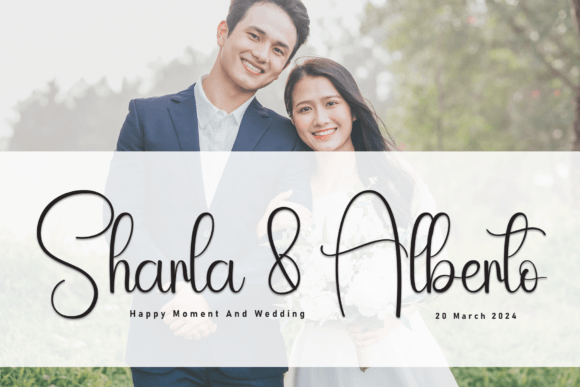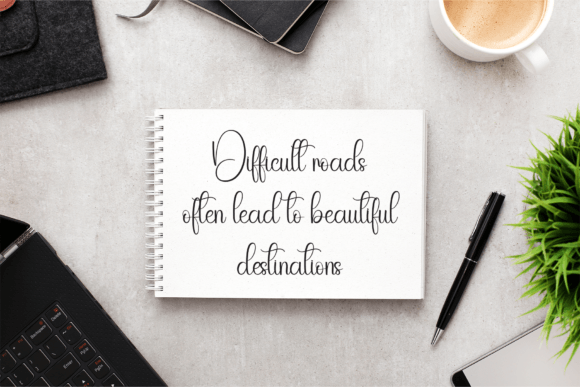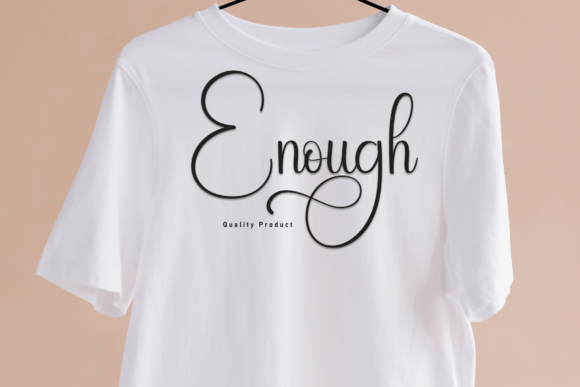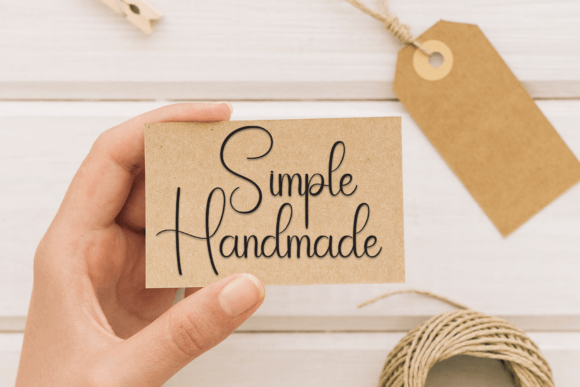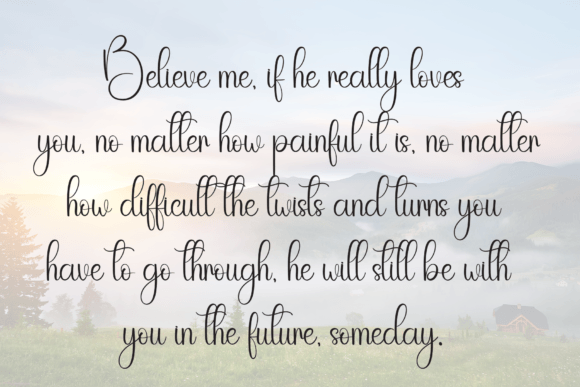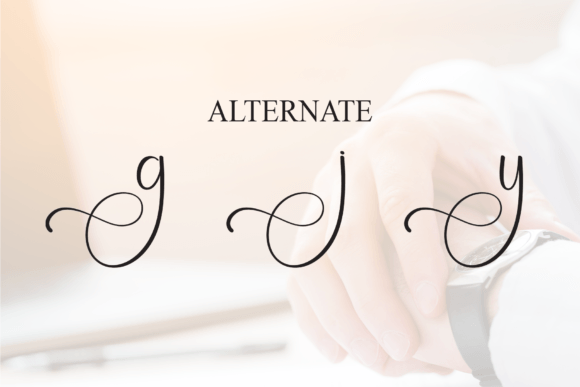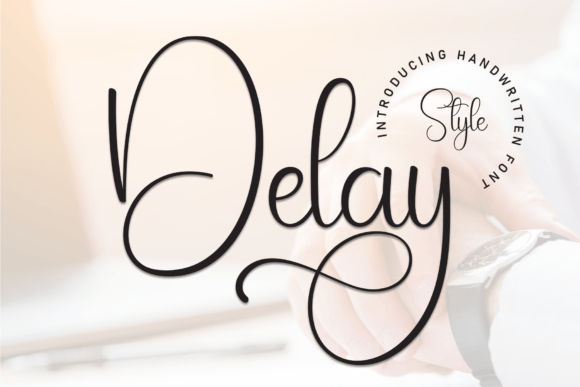
Introducing Delay Font: Elevate Your Designs with Elegance and Sophistication
In the world of typography, few fonts manage to capture the essence of elegance and style as effectively as Delay Font. This stunning script font is designed to bring a touch of sophistication and refinement to a wide range of design projects, from wedding invitations and thank you cards to quotes, greeting cards, logos, and business cards. With its beautifully crafted letters and fluid strokes, Delay Font is the perfect choice for designers and crafters looking to add a handwritten touch to their work.
The Characteristics of Delay Font
Delay Font boasts a range of characteristics that set it apart from other script fonts. Its letters are meticulously designed to exude a sense of luxury and refinement, making it ideal for designs that require a high level of sophistication. The font’s fluid strokes and connections between letters create a sense of movement and fluidity, adding to its elegance and charm.
What Makes Delay Font So Versatile?
One of the key benefits of Delay Font is its versatility. This font can be used in a wide range of design projects, including:
- Wedding invitations: Add a touch of romance and elegance to your wedding invitations with Delay Font.
- Thank you cards: Express your gratitude in style with Delay Font’s beautiful script.
- Quotes: Make your quotes stand out with Delay Font’s elegant and sophisticated design.
- Greeting cards: Create stunning greeting cards for any occasion with Delay Font.
- Logos: Use Delay Font to create a luxurious and refined logo for your brand.
- Business cards: Elevate your business cards with Delay Font’s stylish and elegant design.
Why Designers and Crafters Love Delay Font
Designers and crafters love Delay Font for a range of reasons. Here are just a few:
- Ease of use: Delay Font is incredibly easy to use, even for those with limited design experience.
- Customization: Delay Font can be easily customized to suit your design needs.
- High-quality design: Delay Font is designed to the highest standards, ensuring a professional finish every time.
- Unique style: Delay Font’s unique style sets it apart from other script fonts, making it a standout choice for designers and crafters.
Tips for Using Delay Font Effectively
To get the most out of Delay Font, here are a few tips to keep in mind:
- Use it sparingly: Delay Font is best used sparingly to add a touch of elegance and sophistication to your designs.
- Pair it with other fonts: Delay Font pairs beautifully with other fonts, making it easy to create stunning contrast and visual interest.
- Experiment with colors: Delay Font looks stunning in a range of colors, from classic black and white to bold and bright hues.
- Pay attention to spacing: Make sure to pay attention to spacing when using Delay Font to ensure a clean and elegant finish.
In conclusion, Delay Font is a stylish and incredibly elegant script font that is sure to elevate your designs to the next level. With its beautifully crafted letters, fluid strokes, and versatile design, Delay Font is the perfect choice for designers and crafters looking to add a handwritten touch to their work. Whether you’re creating wedding invitations, thank you cards, quotes, greeting cards, logos, or business cards, Delay Font is the perfect choice.